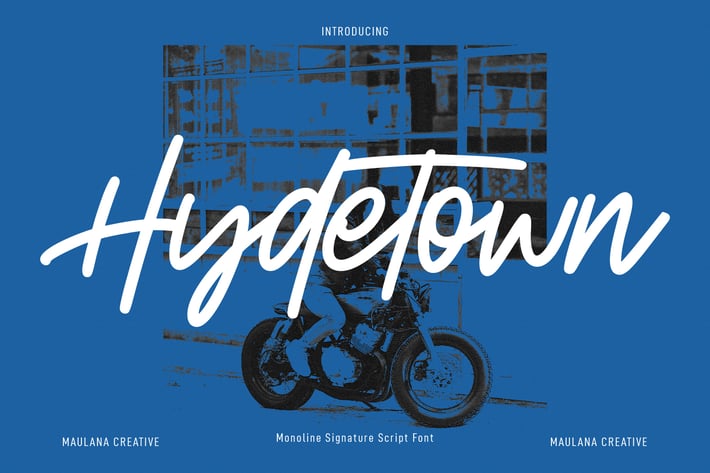
Hydetown Script Font
Hydetown is a modern casual signature script font. With slanted consist stroke, fun character with a bit of ligatures and alternates. To give you an extra creative work. Hydetown font support multilingual more than 100+ language. This font is good for logo design, Social media, Movie Titles, Books Titles, a short text even a long text letter and good for your secondary text font with sans or serif. Make a stunning work with Hydetown font.